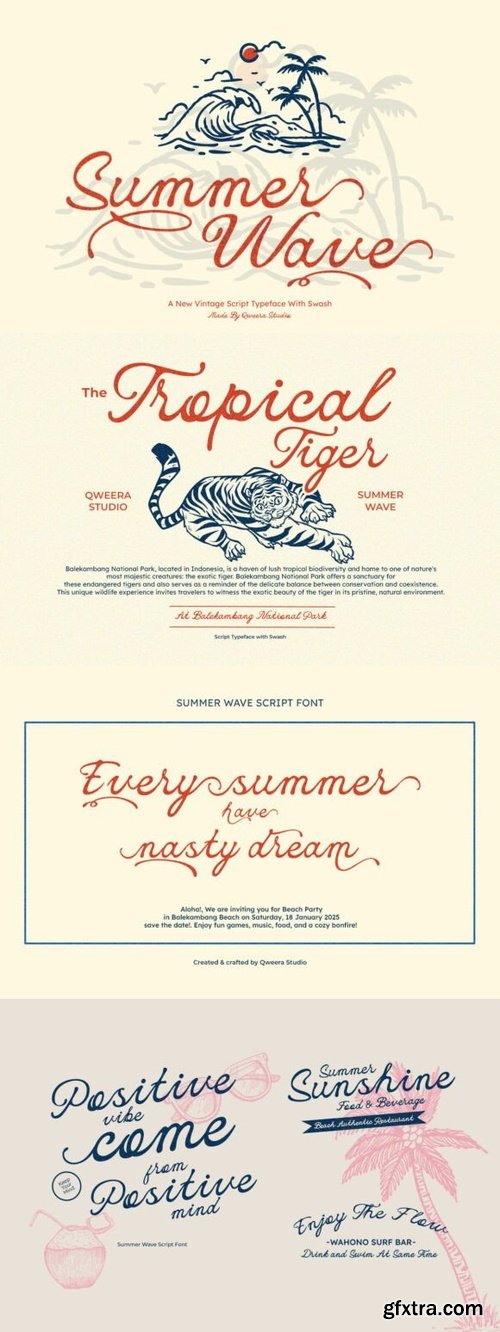
Summer Wave Font
- Summer Wave is more than just a font—it’s a stunning handwritten script typeface designed to bring a vintage yet modern touch to your creative projects. Featuring smooth strokes, elegant swashes, and unique alternates, this font is perfect for branding, posters, magazine layouts, social media graphics, and print designs. Whether you’re crafting a tropical summer logo, wedding invitation, or retro-style merchandise, Summer Wave enhances your project with effortless elegance and a refreshing, hand-drawn charm.
- Where Vintage Meets Modern Creativity
- Summer Wave stands out with its organic flow and stylish ligatures, offering endless creative possibilities. Its versatility makes it ideal for projects that demand a bold and elegant aesthetic, from editorial layouts to creative branding. This font isn’t just a tool—it’s a statement of creativity and sophistication.